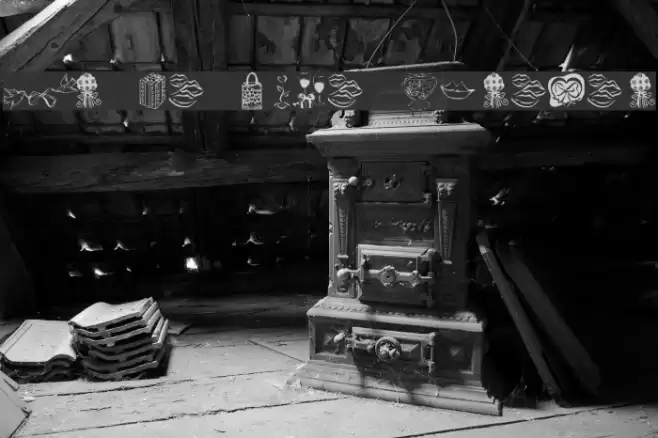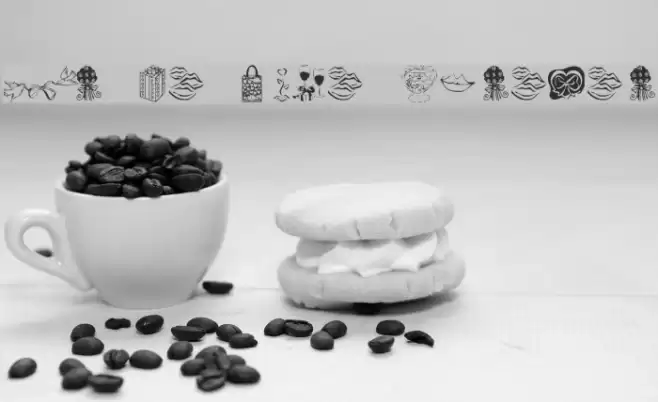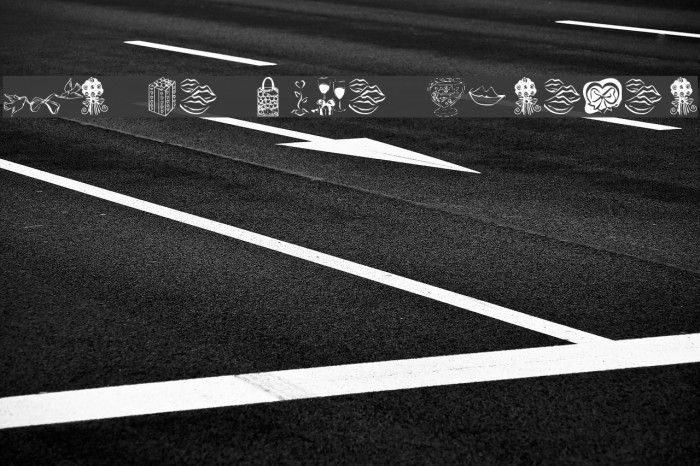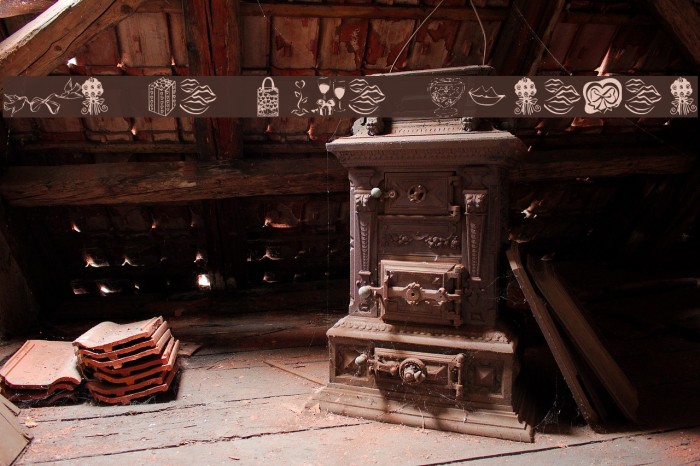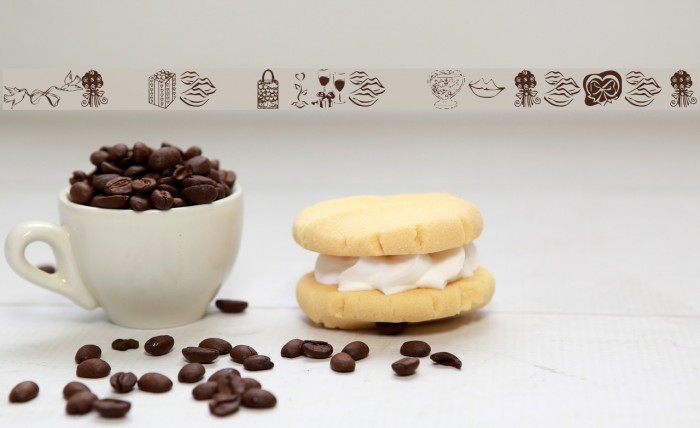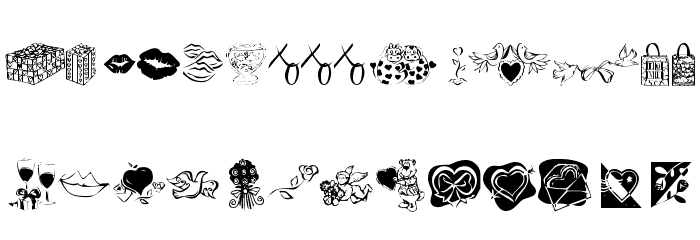
KR Be Mine Forever Font
KR Be Mine Forever Description
This is a decorative font that features a variety of romantic and whimsical symbols instead of traditional alphanumeric characters. The design includes elements such as hearts, flowers, gift boxes, and other love-themed icons. Each character is represented by a unique illustration, making it ideal for creative and playful designs. The style is consistent throughout, with a focus on conveying a sense of love and celebration. The symbols are detailed and intricate, providing a visually engaging experience.
A decorative font with romantic and whimsical symbols replacing traditional characters from Valentine fonts.
- Proposed Projects: Ideal for Valentine's Day cards, wedding invitations, love-themed posters, and any project that requires a playful and romantic touch.
- Use Case: Logos, Decorative text, Themed designs